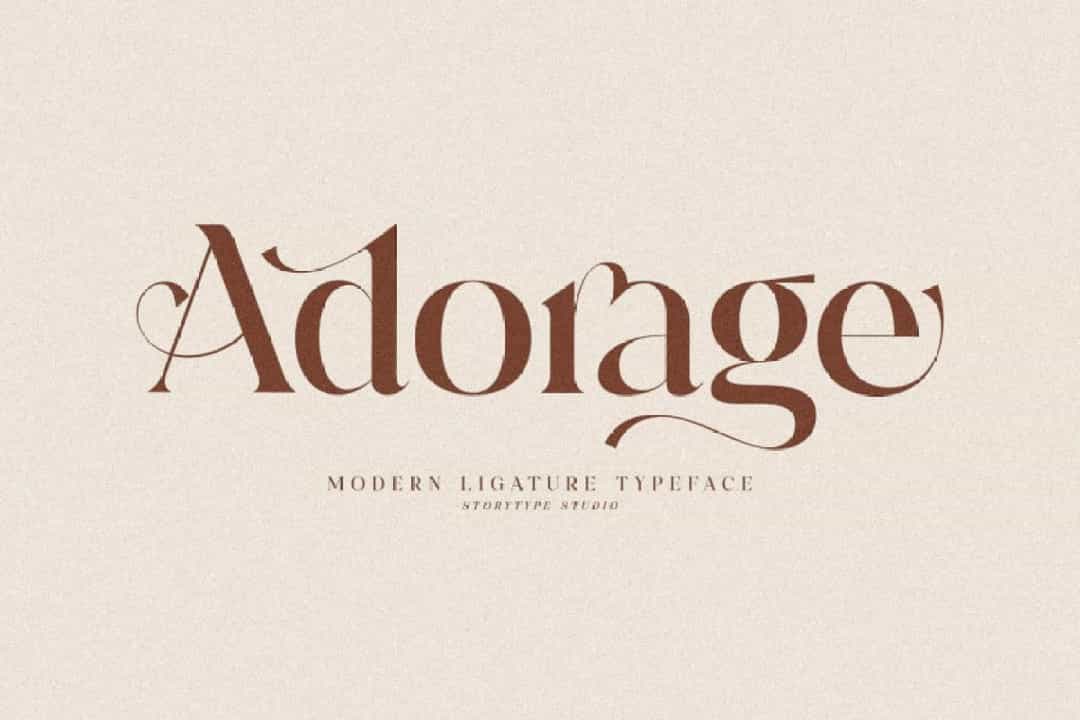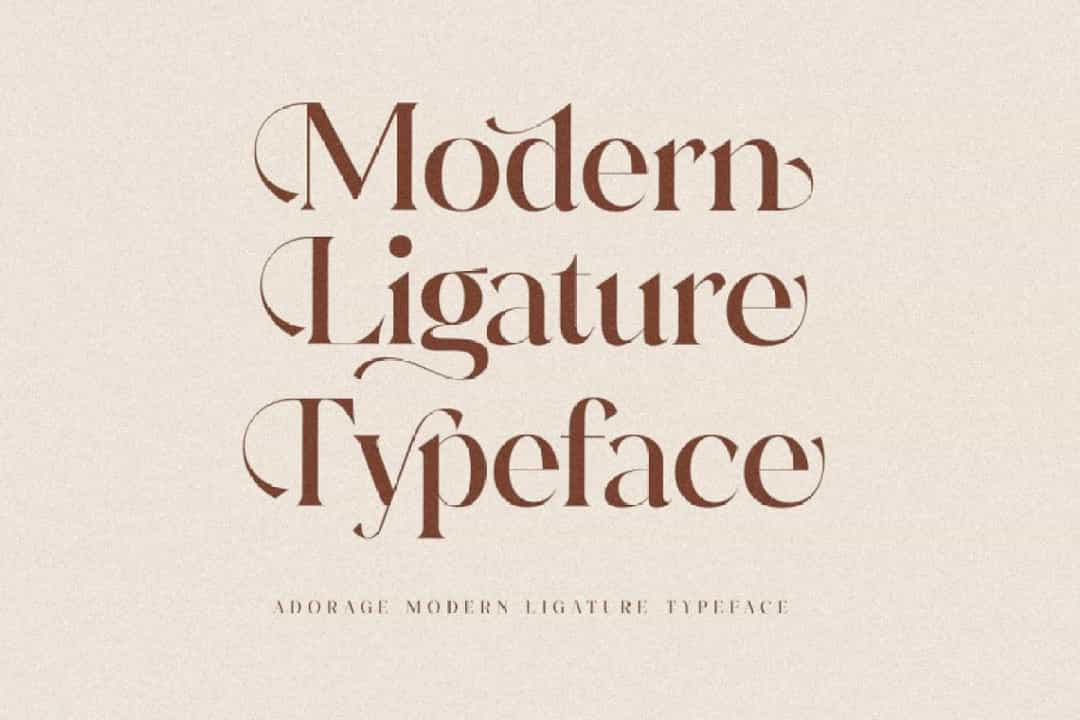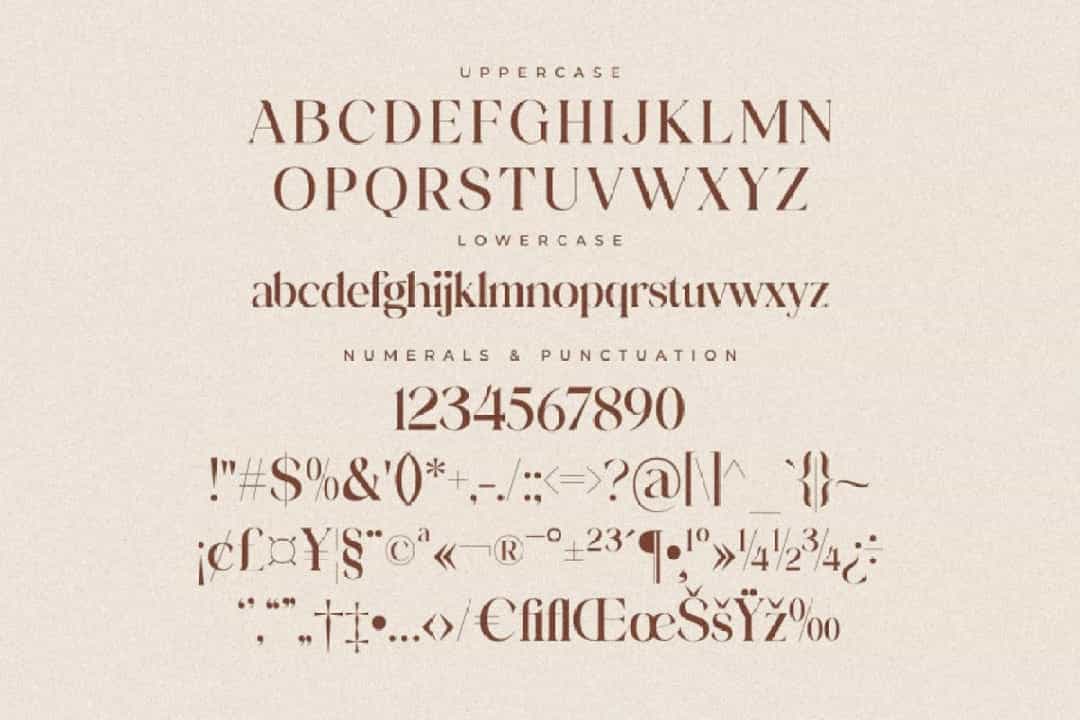
Adorage Serif Font created by Storytype is a modern yet classic serif font with its own distinct style and modern appearance, ideal for logos, movie or book titles, fashion brands clothing magazines letters quotes etc.